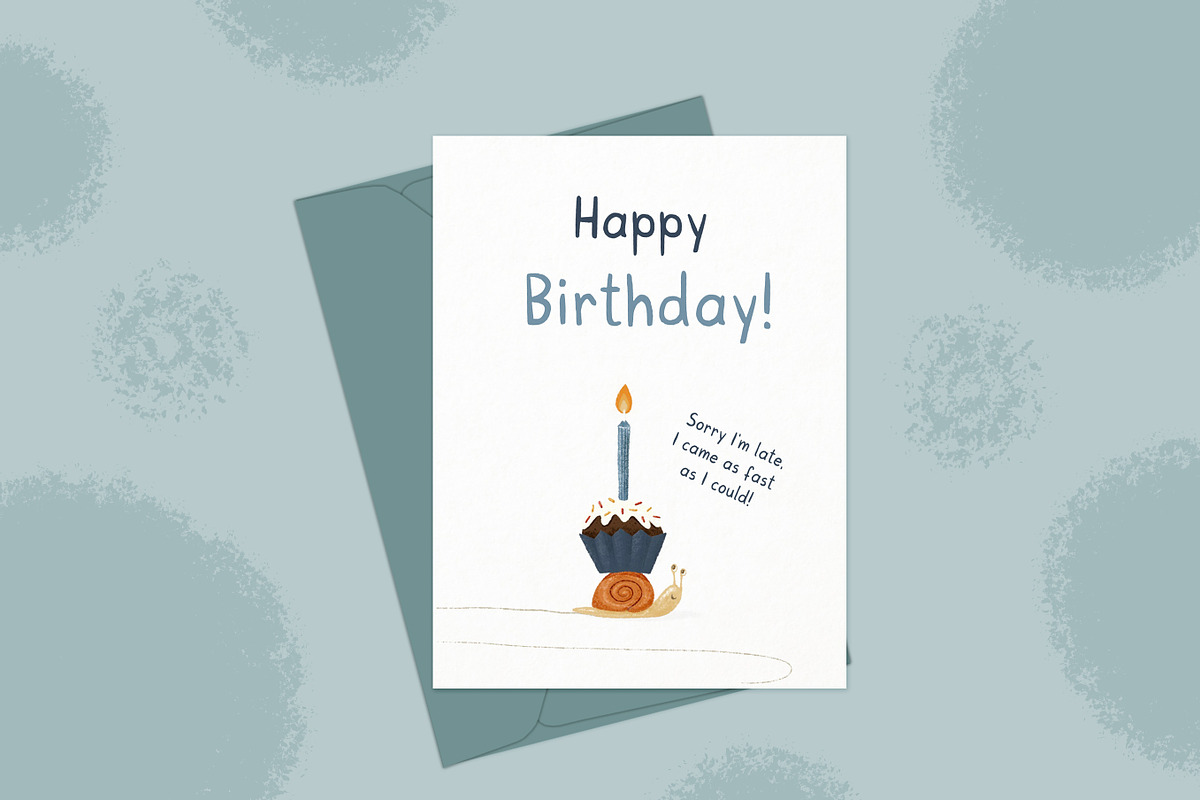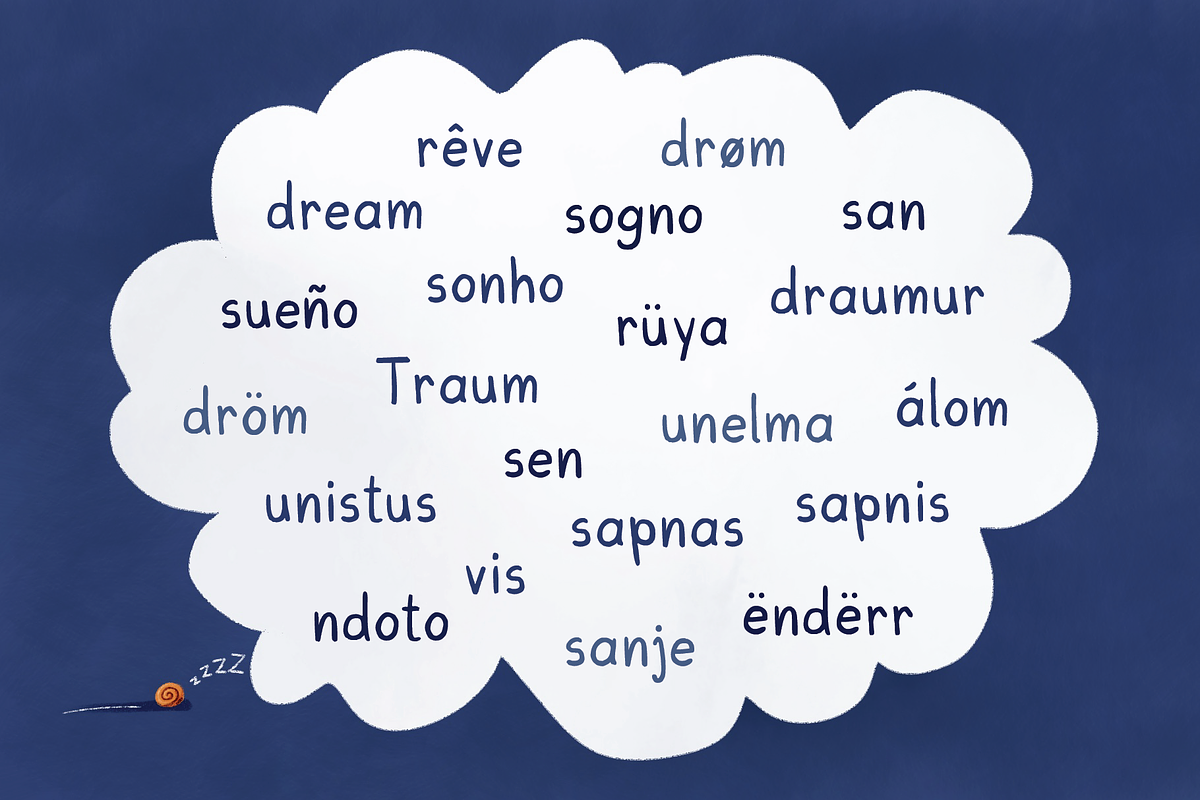
Little Snail
Little Snail is a playful, handwritten typeface with smooth curves and organic letterforms, making it perfect for children's books, comics, and illustrations. Its friendly and inviting style brings a joyful, engaging vibe to both print and digital projects, adding a touch of magic and warmth to your designs.
This font fully supports a wide range of languages, including English, French, Spanish, Portuguese, German, Italian, Swedish, Norwegian, Danish, Finnish, Icelandic, Polish, Czech, Slovak, Hungarian, Turkish, Estonian, Latvian, Lithuanian, Romanian, Albanian, Croatian, Bosnian, Slovenian, Serbian (Latin script), Irish, and Swahili. Test the font above to ensure it suits your project.